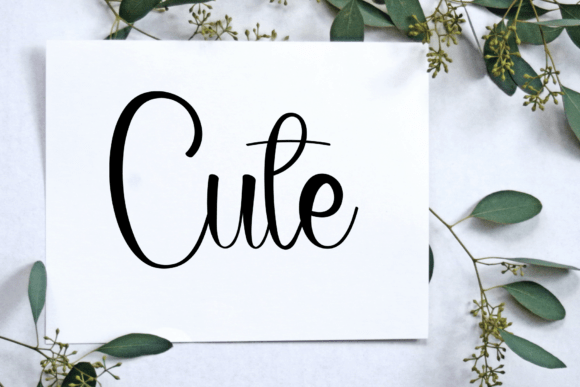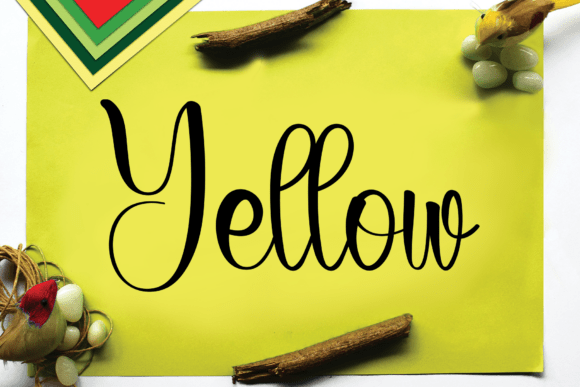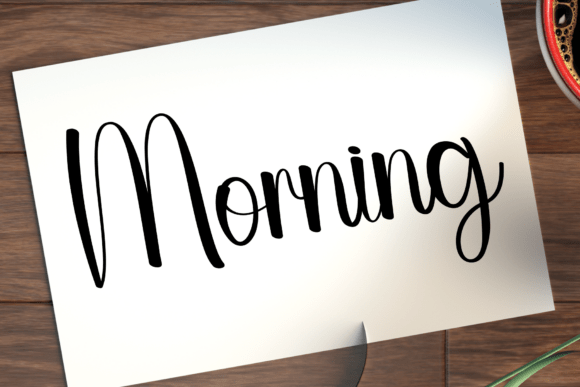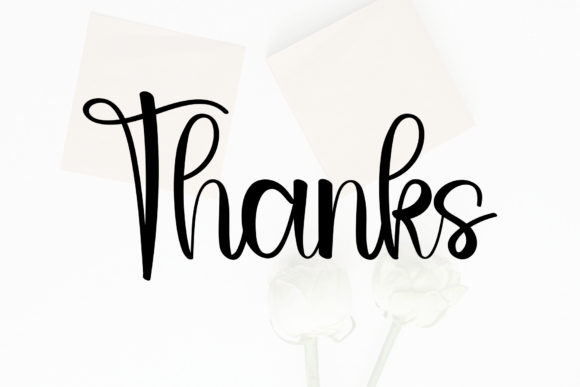
Introducing Amelina Font: The Perfect Blend of Luxury and Casual Elegance
In the world of typography, fonts play a crucial role in defining the aesthetic and tone of a design. For designers and crafters looking for a unique and versatile font, Amelina Font is an excellent choice. This handwritten font, drawn with a marker, offers a relaxed and sporty feel, making it ideal for a wide range of applications.
What is Amelina Font?
Amelina Font is a beautifully crafted handwritten font that mimics the look of marker-drawn letters. Its distinctive style combines the elegance of traditional typography with the casualness of handwritten script. This blend of luxury and casual elegance makes Amelina Font perfect for designs that require a touch of sophistication without appearing too formal.
Key Features of Amelina Font
• Relaxed and Sporty Feel: Amelina Font embodies a laid-back yet sporty vibe, setting it apart from more traditional fonts.
• Versatility: Its unique style makes it suitable for a variety of design projects, from branding and logos to wedding supplies and greeting cards.
• Luxurious yet Casual: Amelina Font strikes the perfect balance between looking luxurious and elegant while still appearing casual and approachable.
Use Cases for Amelina Font
Amelina Font’s versatility is one of its most appealing qualities. Here are some of the best use cases for this remarkable font:
• Branding and Logos: Create a memorable brand identity with Amelina Font. Its unique and stylish appearance can help your brand stand out.
• Wedding Supplies: Add a touch of elegance and whimsy to wedding invitations, stationery, and other supplies with Amelina Font.
• Greeting Cards: Whether it’s a birthday, anniversary, or holiday card, Amelina Font can add a personal and sophisticated touch.
• Fashion and Lookbooks: Elevate your fashion designs or lookbooks with a font that exudes style and sophistication.
• Marketing Promotions: Use Amelina Font in your marketing materials to create a luxurious yet approachable feel.
Why Choose Amelina Font?
With so many fonts available, why should designers and crafters choose Amelina Font for their projects? Here are a few compelling reasons:
• Unique Style: Amelina Font offers a distinctive style that can help your designs stand out in a crowded market.
• Customization: The font’s flexibility allows for a high degree of customization, ensuring it fits your project’s specific needs.
Tips for Using Amelina Font Effectively
To get the most out of Amelina Font, consider the following tips:
• Pair with Complementary Fonts: Combine Amelina Font with simpler fonts to create visual interest and hierarchy in your designs.
• Experiment with Colors: While Amelina Font looks great in traditional colors like black and white, don’t be afraid to experiment with bold and pastel colors.
• Consider the Context: Ensure that the font size and style are appropriate for the medium and context in which it will be used.
Amelina Font is a versatile and stylish handwritten font that can elevate a wide range of design projects. Its unique blend of luxury and casual elegance makes it an excellent choice for designers and crafters looking to add a touch of sophistication to their work. Whether you’re creating branding materials, wedding supplies, or marketing promotions, Amelina Font is sure to make your designs stand out.